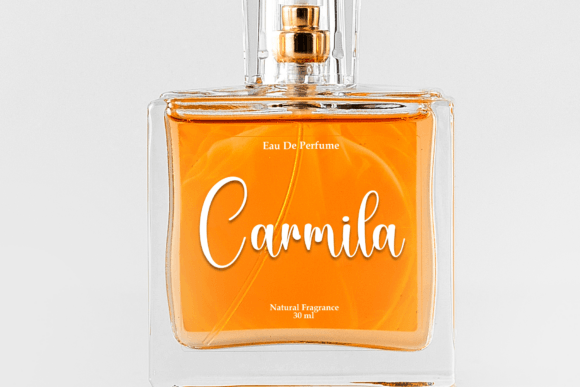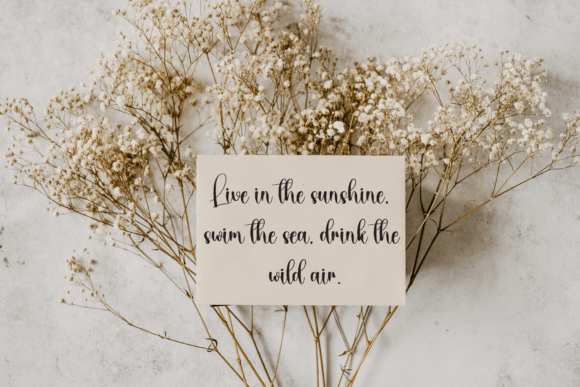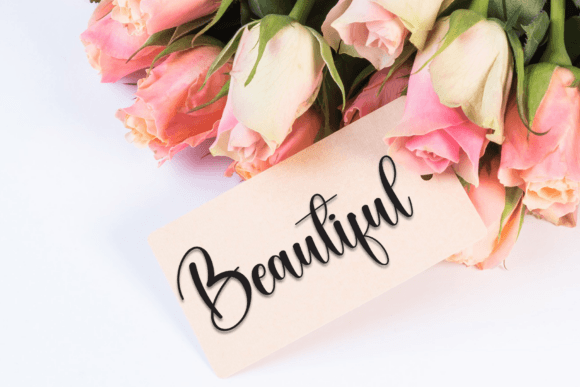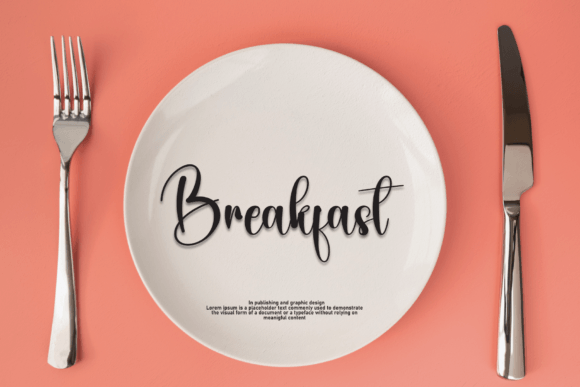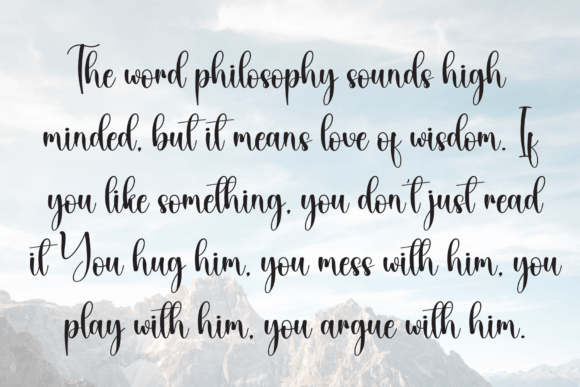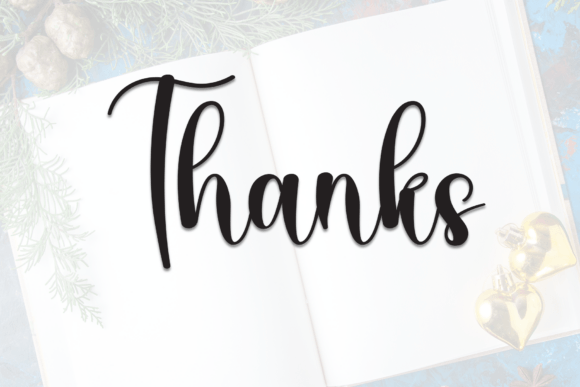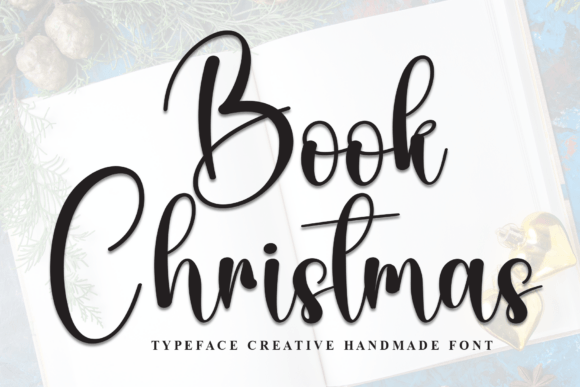
The Magic of Book Christmas Font: A Designer’s Delight
It’s happened to the best of us – you’re working on a project, and suddenly, you’re stuck. The design is almost perfect, but something’s missing. You’re scrolling through font after font, and nothing seems quite right. That’s exactly what happened to me when I was working on a wedding invitation project. I needed a font that was elegant, stylish, and had a handwritten touch. That’s when I stumbled upon Book Christmas Font.
As I explored this beautiful script font, I knew I had found what I was looking for. Book Christmas Font is described as a stylish and incredibly elegant script font, perfect for wedding invitations, thank you cards, quotes, greeting cards, logos, business cards, and every other design that needs a handwritten touch. In this article, I’ll share my experience with Book Christmas Font, its features, and how to make the most of it in your designs.
• ✨ Elegant and stylish: Book Christmas Font has a unique, sophisticated look that’s perfect for designs that require a touch of class.
• ✅ Highly versatile: This font can be used for a wide range of projects, from wedding invitations to business cards.
• 💫 Great for quotes and greeting cards: The font’s elegant and cursive nature makes it perfect for adding a personal touch to quotes and greeting cards.
While Book Christmas Font is an excellent choice for many designs, there are a few things to keep in mind:
• ⚠️ Limited use for body text: Due to its elegant and cursive nature, Book Christmas Font might not be the best choice for large blocks of body text.
• 🤔 May require manual kerning: As with many script fonts, you might need to adjust the kerning manually to achieve the perfect look.
Book Christmas Font was created with the intention of capturing the essence of traditional calligraphy. The designer aimed to create a font that would evoke the feeling of handwritten elegance, perfect for special occasions and designs that require a touch of sophistication. While the actual designer and their story might be unknown, it’s clear that Book Christmas Font was crafted with love and attention to detail.
Q: What type of projects is Book Christmas Font best suited for?
A: Book Christmas Font is perfect for designs that require a handwritten, elegant touch, such as wedding invitations, thank you cards, quotes, greeting cards, logos, and business cards.
Q: Is Book Christmas Font suitable for body text?
A: Due to its elegant and cursive nature, Book Christmas Font might not be the best choice for large blocks of body text. It’s better suited for headings, titles, and short paragraphs.